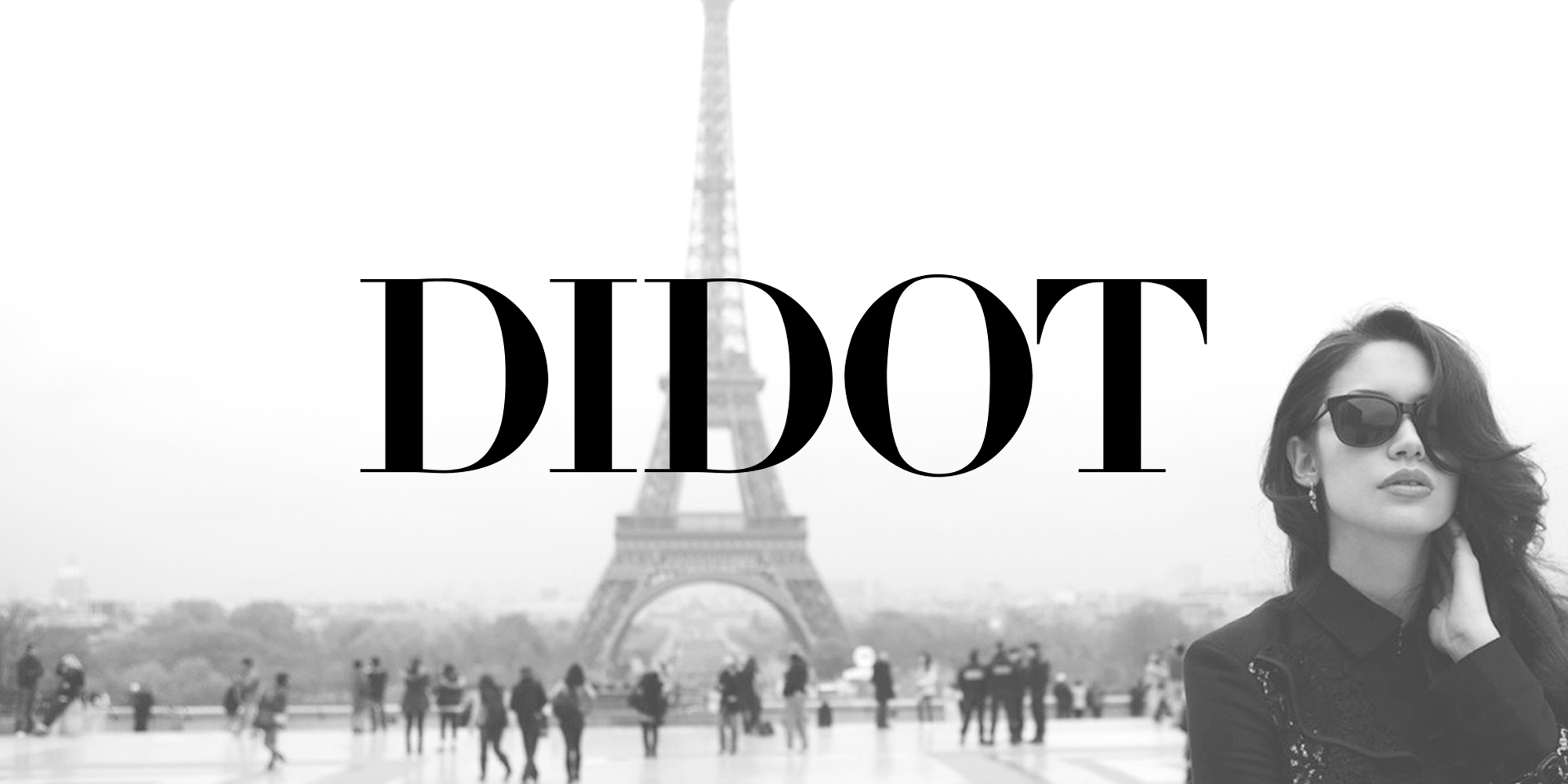
Linotype Didot Font is perfect for luxury fashion magazines, high-end brand communications, elegant book covers, sophisticated editorial layouts, premium product catalogs, exclusive event invitations, fine art publications, classical music programs, upscale restaurant menus, and distinguished cultural materials. This exquisite neoclassical serif brings French elegance and aristocratic refinement to prestigious design applications.
What makes Linotype Didot Font so exciting is its extraordinary embodiment of 18th-century French typographic artistry that represents the pinnacle of neoclassical design and continues to define luxury and sophistication in contemporary applications. The font features dramatically contrasted letterforms with razor-sharp hairlines and bold main strokes that create stunning visual hierarchy and unmistakable elegance. Its distinctive characteristics include extreme contrast ratios, perfectly vertical stress, and mathematical precision that reflect the Enlightenment ideals of reason, beauty, and perfection that inspired the original Didot family of typographers. The font's association with French luxury and proven performance in the most prestigious publishing environments make Linotype Didot Font the ultimate choice for brands seeking to communicate exclusivity, refinement, and aristocratic taste.
The Linotype Didot Font family includes comprehensive weights and styles: Roman, Italic, Bold, and Headline variations with classical character sets. The extensive character collection encompasses complete Latin alphabet support with luxury typography features, old-style and lining figures, small caps, elegant ligatures, and broad European language coverage including French accents and special characters. Professional features include contextual alternates that enhance neoclassical appearance, optical adjustments for different sizes, expert spacing that maintains French design traditions, and refined character construction that ensures perfect reproduction of the original Didot aesthetic across all modern printing and digital applications.
Whether you're creating luxury brand materials, high-fashion publications, or prestigious cultural communications, Linotype Didot Font Free Download provides the aristocratic typography that elevates design to the highest levels of sophistication and cultural refinement. Its exceptional elegance makes it ideal for brands targeting discerning audiences who appreciate the finest things in life, while its historical pedigree ensures authentic luxury presentation that resonates with cultured consumers worldwide. The font's combination of French heritage and timeless beauty makes it indispensable for luxury fashion houses, premium publishers, cultural institutions, and any organization seeking typography that communicates the exclusivity, refinement, and aristocratic elegance that defines true luxury and sophisticated taste in the most prestigious design applications.